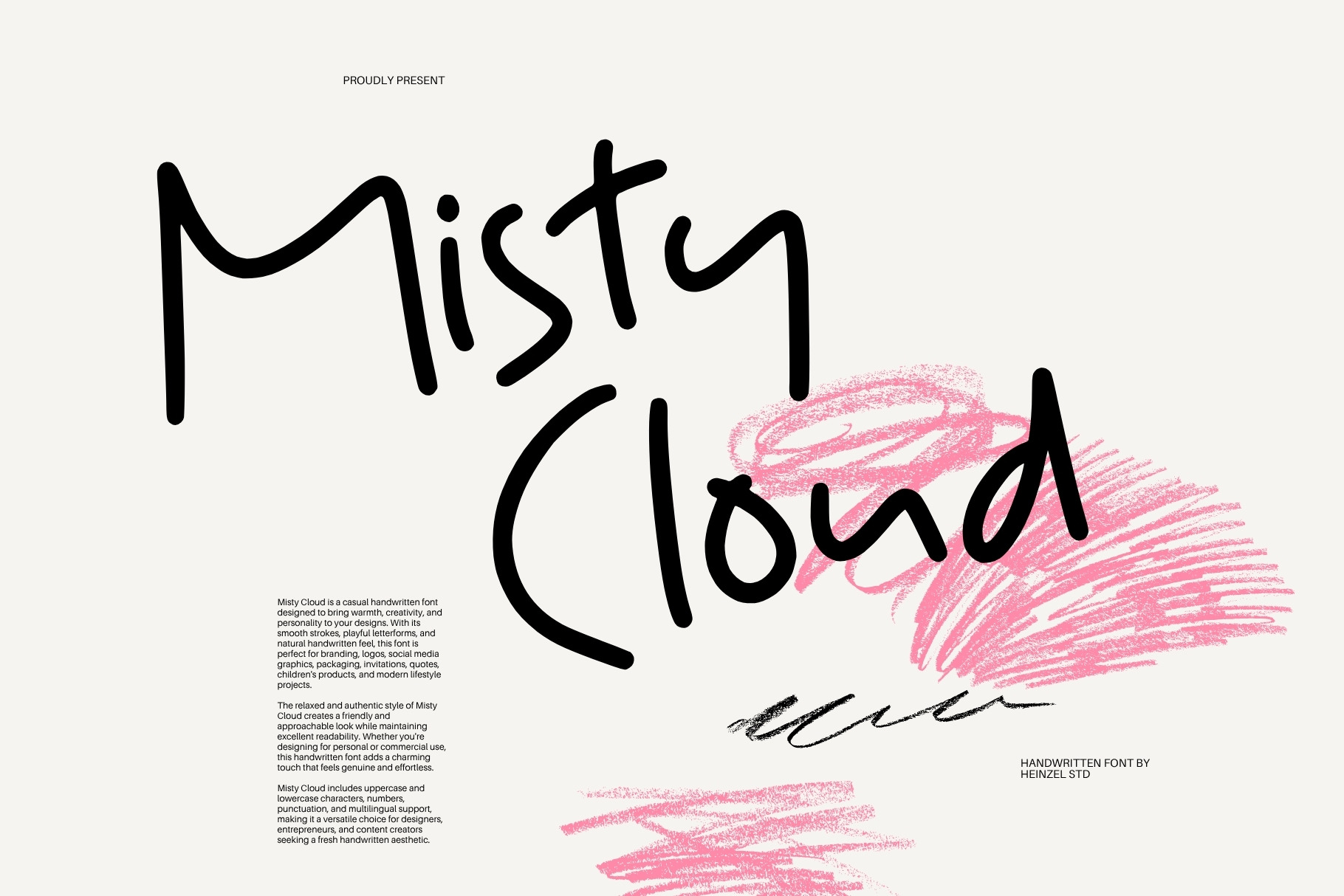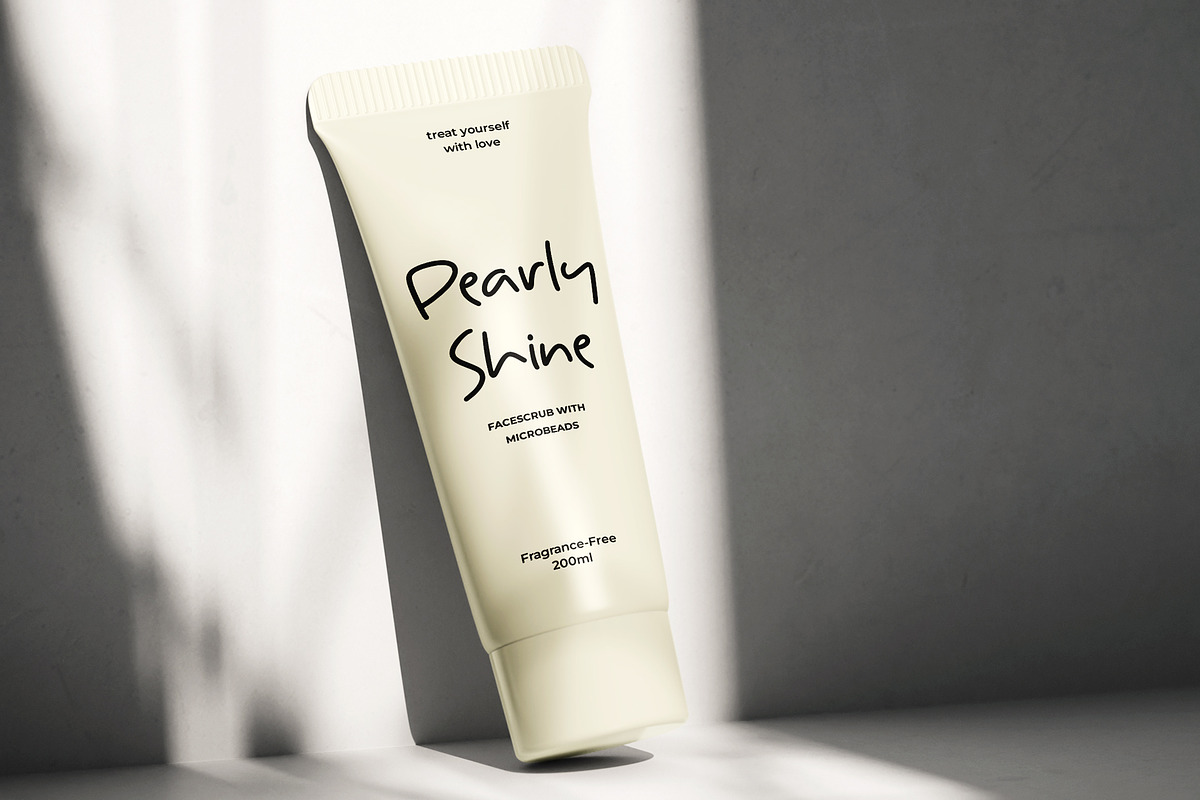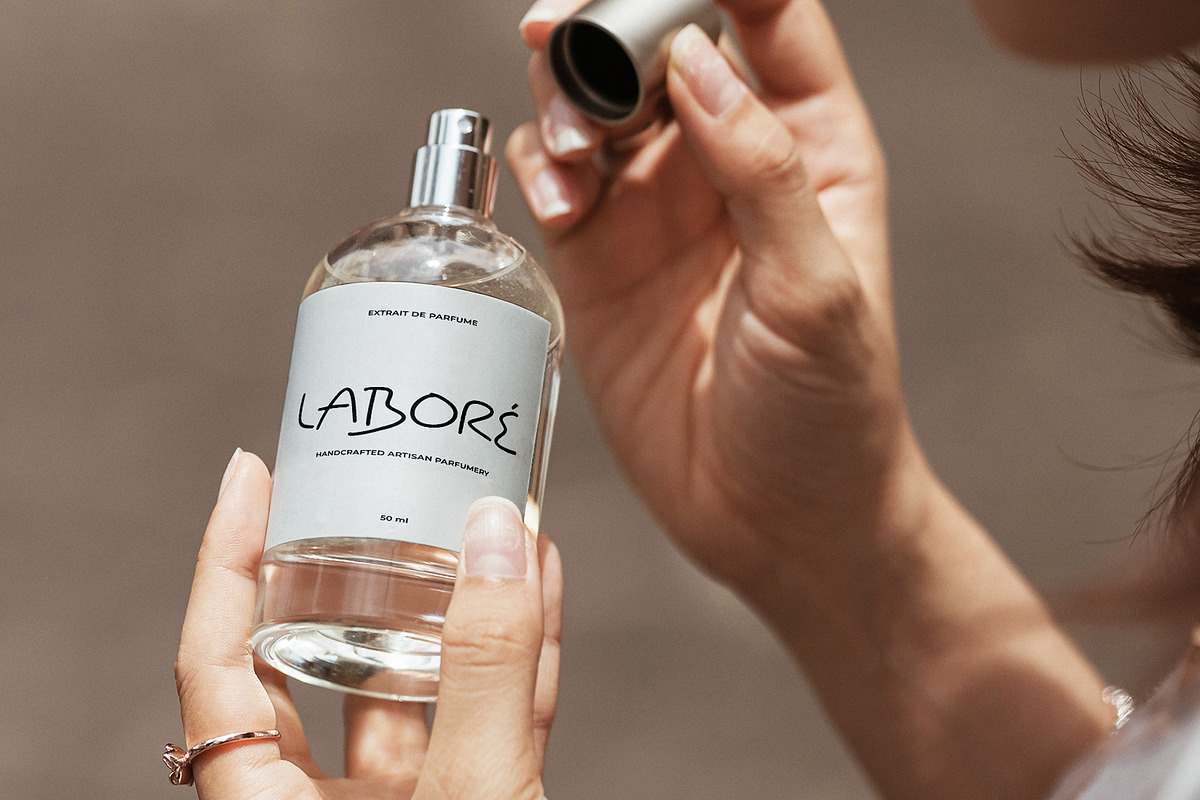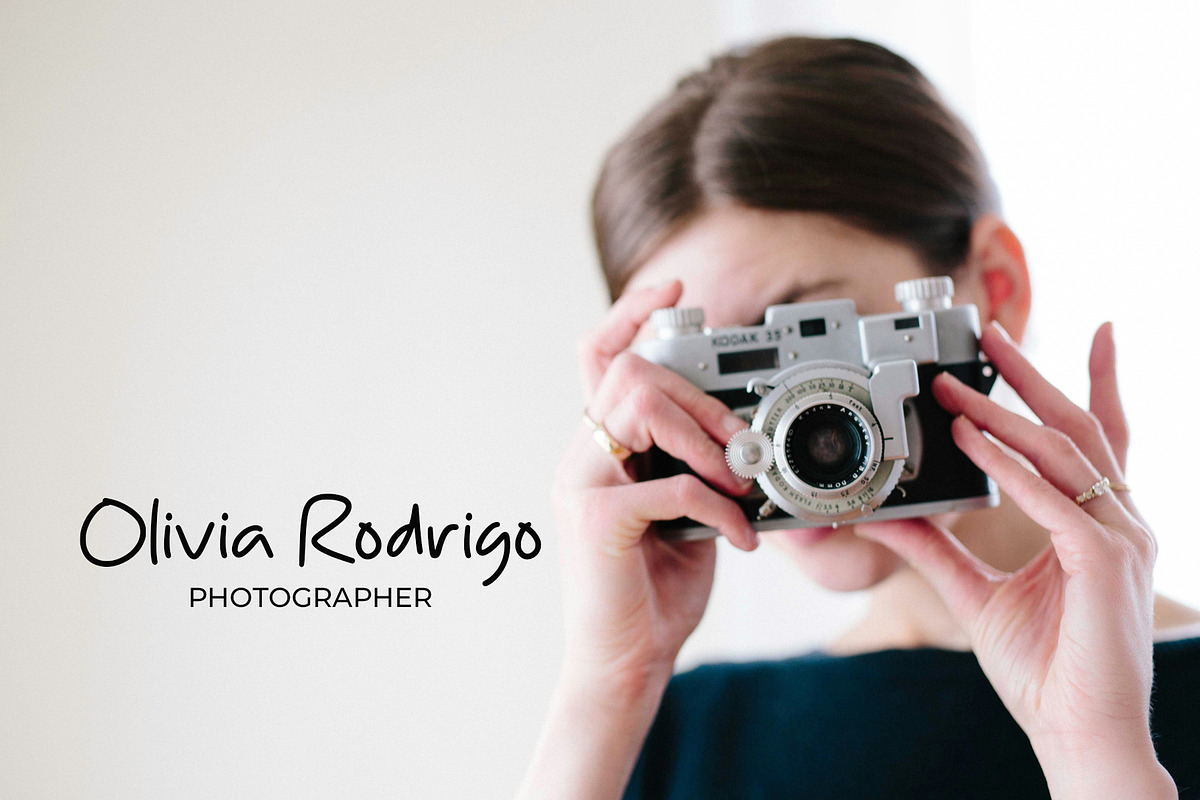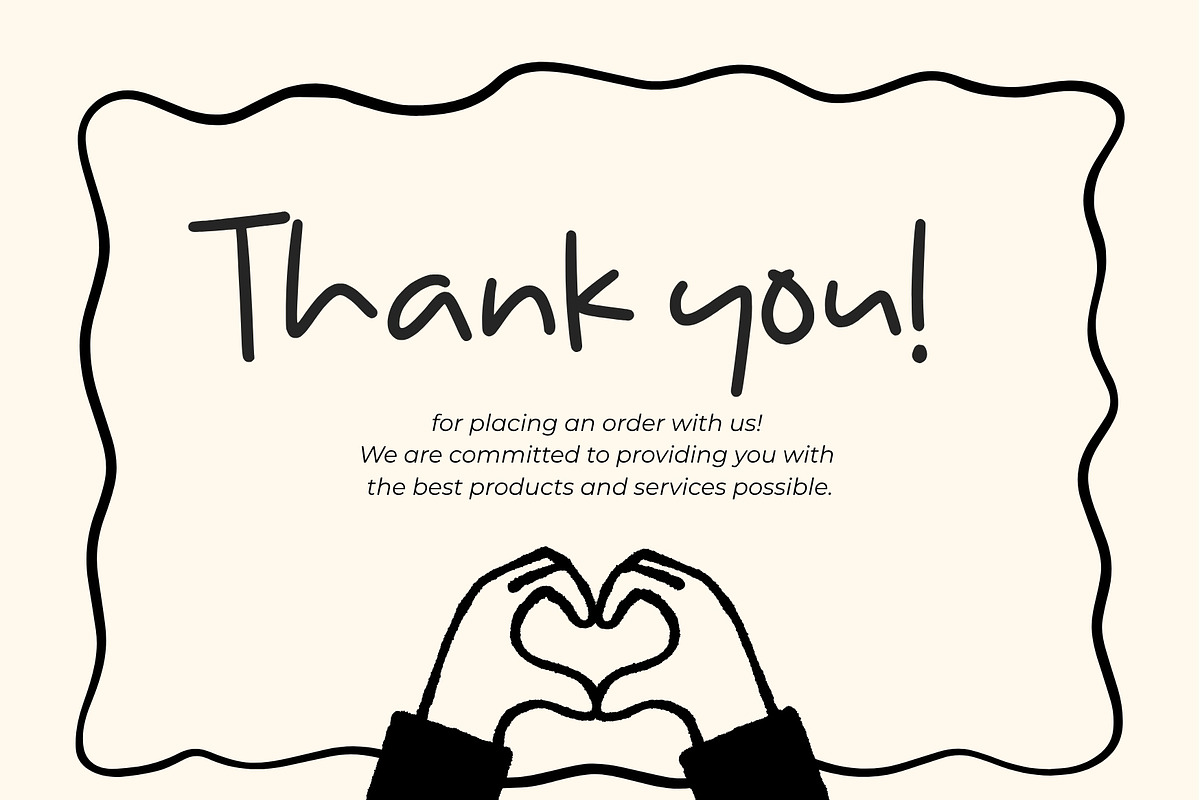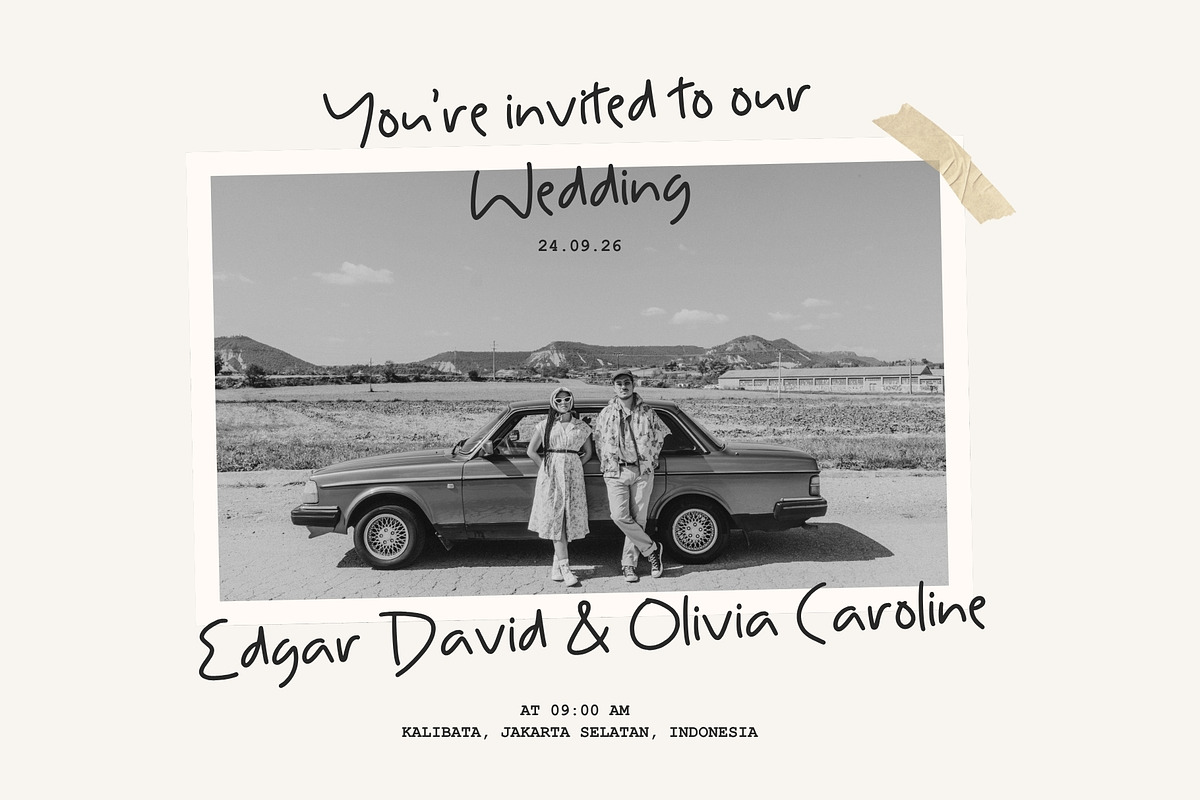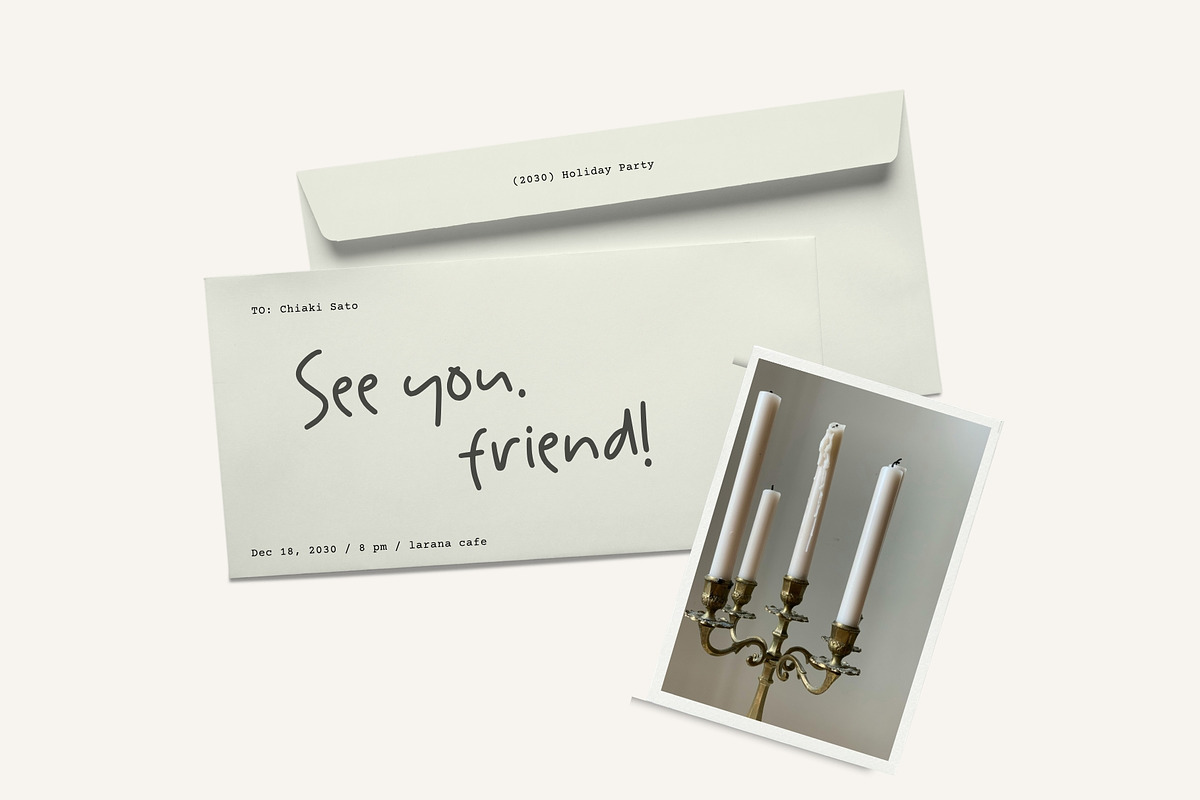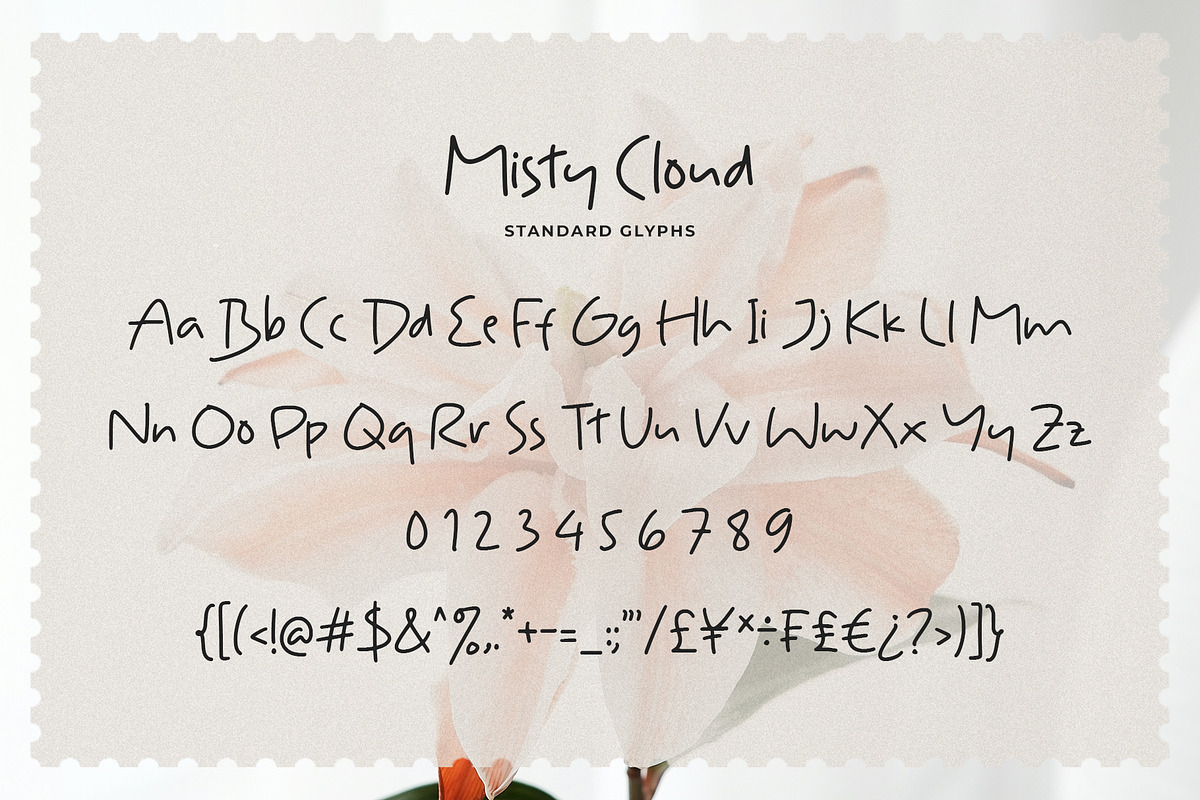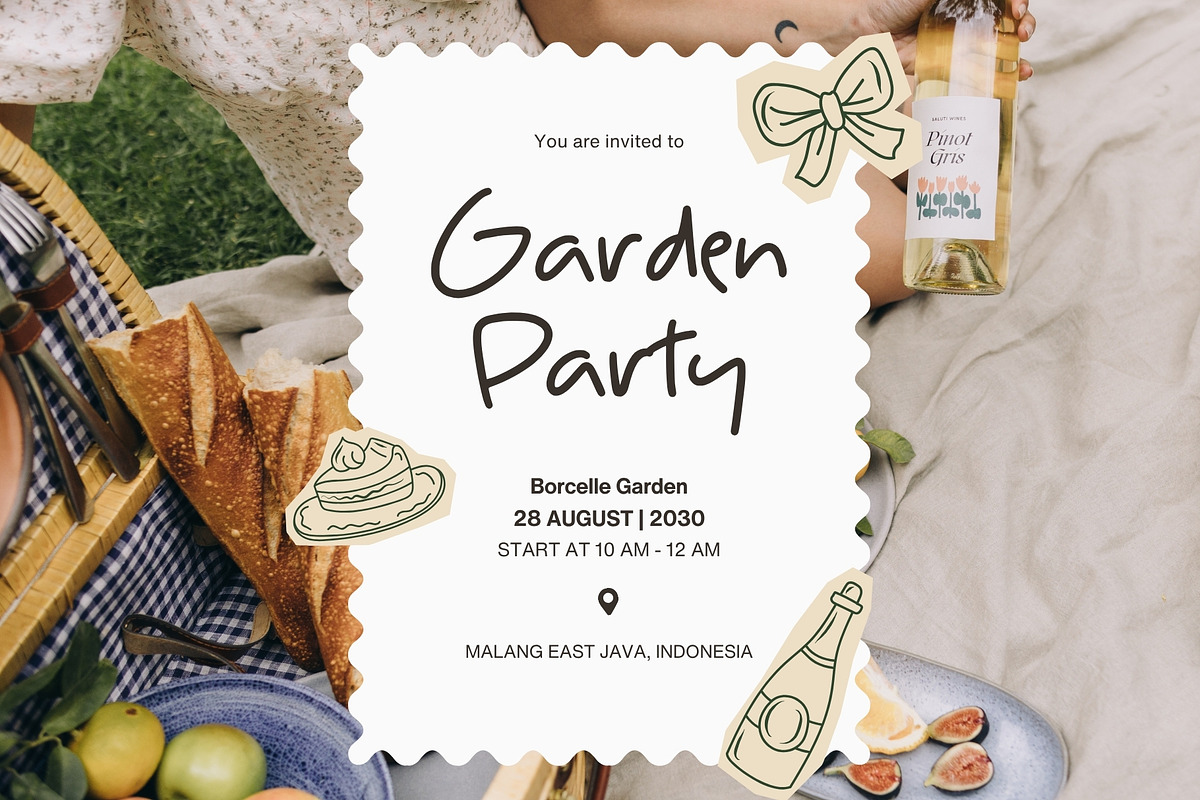
Misty Cloud Casual Handwritten Font
Misty Cloud – Casual Handwritten Font
Misty Cloud is a casual handwritten font designed to bring warmth, creativity, and personality to your designs. With its smooth strokes, playful letterforms, and natural handwritten feel, this font is perfect for branding, logos, social media graphics, packaging, invitations, quotes, children's products, and modern lifestyle projects.
The relaxed and authentic style of Misty Cloud creates a friendly and approachable look while maintaining excellent readability. Whether you're designing for personal or commercial use, this handwritten font adds a charming touch that feels genuine and effortless.
Misty Cloud includes uppercase and lowercase characters, numbers, punctuation, and multilingual support, making it a versatile choice for designers, entrepreneurs, and content creators seeking a fresh handwritten aesthetic.